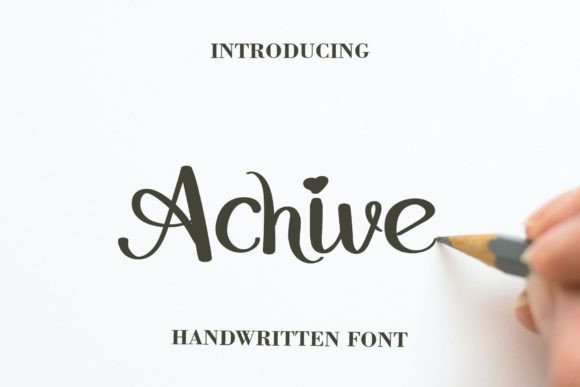
Ignite your creative spirit with Achive Font, the mesmerizing handwritten font that captures the essence of elegance and charm. Asmunin78's masterpiece, Achive, is not just a font; it's an art form that dances along the baseline, adding a touch of luxury and sophistication to every letter.
Indulge in the beauty of its carefully crafted characters, each with its own unique personality. Achive's enchanting curves and flowing lines create a sense of movement and energy, drawing the eye and captivating the imagination. Whether you're designing wedding invitations, branding materials, or simply adding a touch of flair to your personal projects, Achive is the perfect choice for those seeking a font that stands out from the crowd.
Unleash your creativity and let Achive take your designs to new heights. Its versatility and charm make it perfect for a wide range of projects, from elegant logos and posters to playful invitations and greeting cards. Experience the joy of creating with Achive and watch your designs come to life with an irresistible touch of whimsy and sophistication.